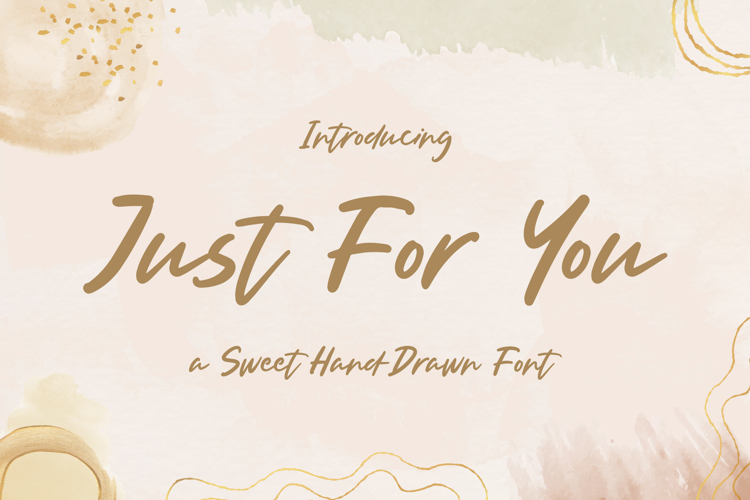
Just For You Font
About Just For You Font
Just For You is a sweet and dreamy handwritten font. Flowing easily and with a sweet and elegant touch, this font is ideal for each of your bakery, apparel, romantic designs or ideas.
It will look awesome on any T-shirt, print, or restaurant brand!